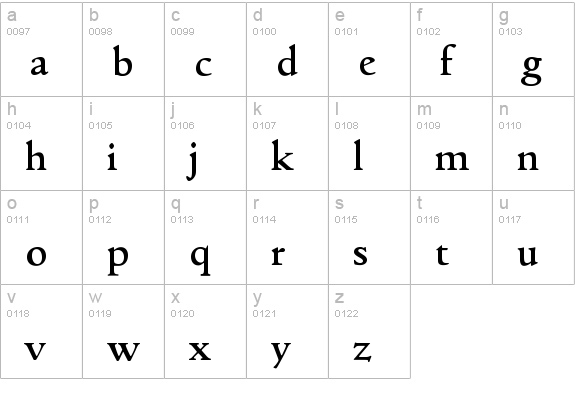
Goudita-Medium is a balanced, medium-weight variant in the Goudita typeface family \xE2\x80\x94 well suited to sub-headlines, navigation, and balanced editorial work.
Goudita-Medium font is a versatile and elegant typeface that strikes the perfect balance between modernity and sophistication. With its clean lines and subtle curves, this font is ideal for a wide range of design projects, from branding to editorial design. What sets Goudita-Medium apart is its free-spirited nature, allowing designers to express their creativity without limitations. Whether you're looking to create a sleek logo or a stylish magazine layout, this font will bring a touch of class to your work. Best of all, Goudita-Medium is freely available to download at FontsMarket.com, making it accessible to designers of all levels. Embrace the beauty and versatility of Goudita-Medium font in your next project and watch your designs come to life with elegance and charm.